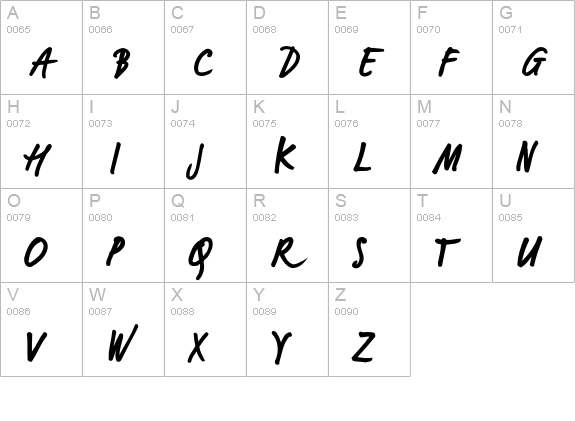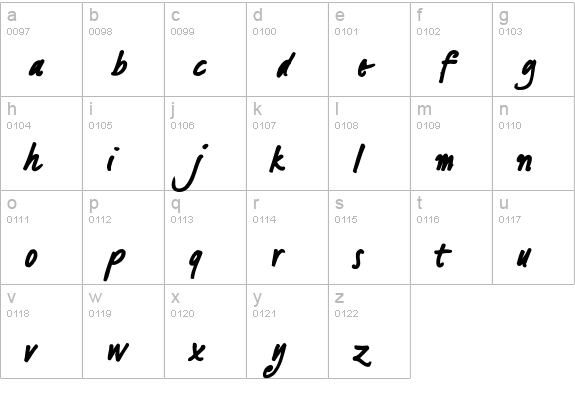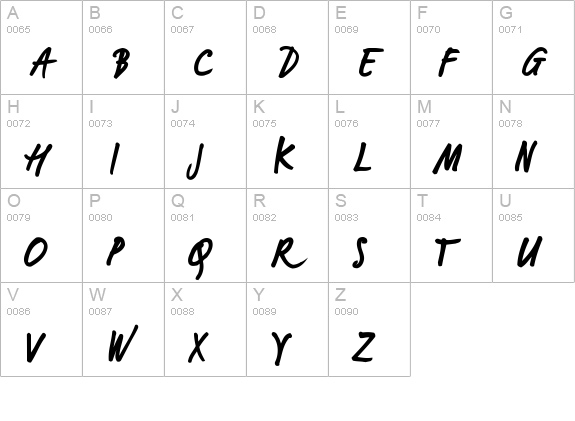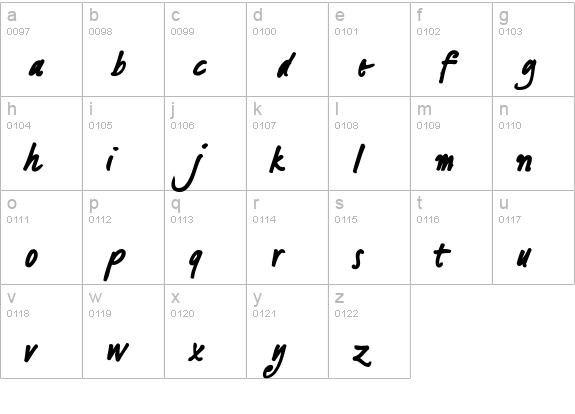
LucasHandFeetBold Font Details
LucasHandFeetBold font is a unique and playful typeface that exudes creativity and charm. With its bold strokes and distinct hand-drawn style, this font is perfect for adding a touch of whimsy to any project. Whether you're designing a poster, logo, or greeting card, LucasHandFeetBold will make your text stand out and capture attention. What's even better is that LucasHandFeetBold is available for free download at FontsMarket.com. This means you can easily access this eye-catching font and use it in your designs without any cost. Don't miss out on the opportunity to enhance your projects with the captivating LucasHandFeetBold font today!